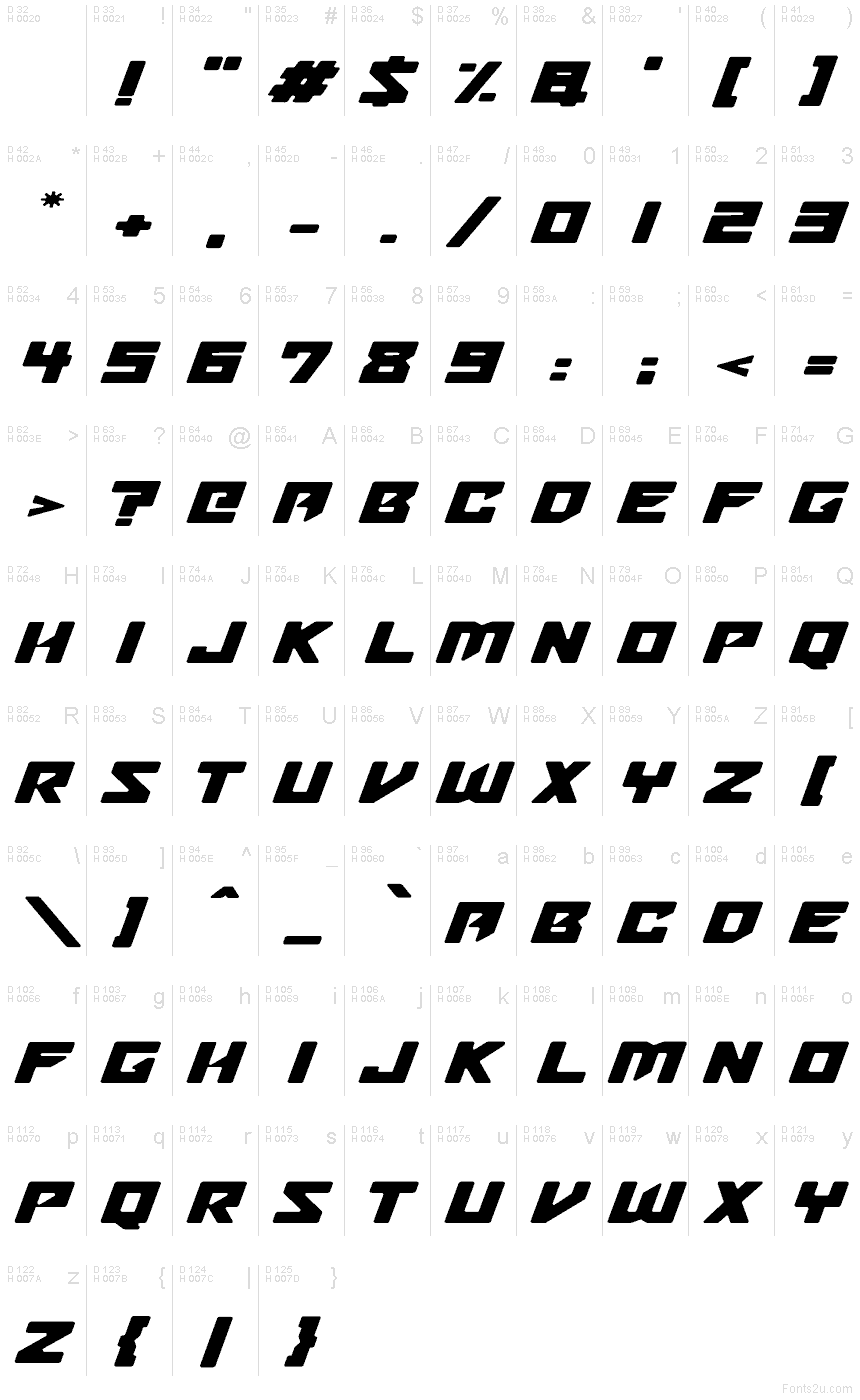
Thuast Demo
Thuast font by Glyphstyle is a techno display resource that uses an expanded width with smart angles and large geometric designs that make its letters easily legible. This bold typeface presents a futuristic design with strong presence and sharp edges, one which comes to life when paired with an equally exciting color scheme.
Free to use, the angular typography is suitable for sci-fi movie posters, video game covers, album artwork, band logos, applications in UI/UX design for websites and apps. Use it to build texts in both English and Arabic that welcome readers with genuine modernity. With Thuast font in your designer’s toolkit, you’ll never have to worry about uninspiring graphic designs!